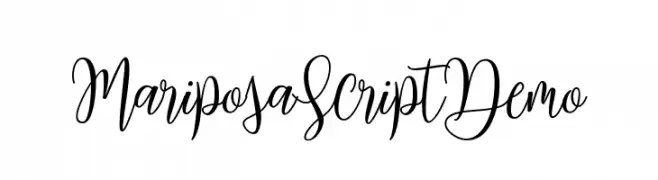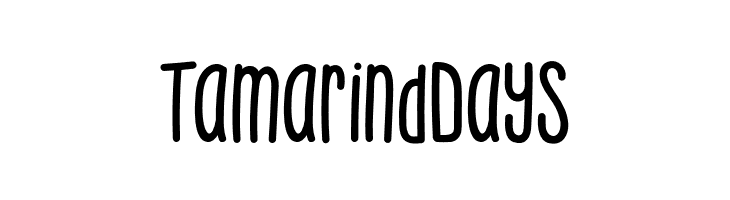
A graceful and elegant script font with smooth, flowing strokes.
A cursive, elegant font with a calligraphic style.
A bold, playful font with whimsical curves and decorative elements.
A modern, high-contrast font with elegant and stylish characters.
An elegant, flowing script font with a cursive, handwritten style.
A playful, narrow font with rounded edges and consistent stroke thickness.
A flowing, cursive font with elegant, sweeping strokes and a handwritten appearance.
A graceful, cursive script font with fluid, elegant lines.
An elegant script font with flowing, intricate loops and swashes.
A graceful and sophisticated script font with flowing, interconnected letters.